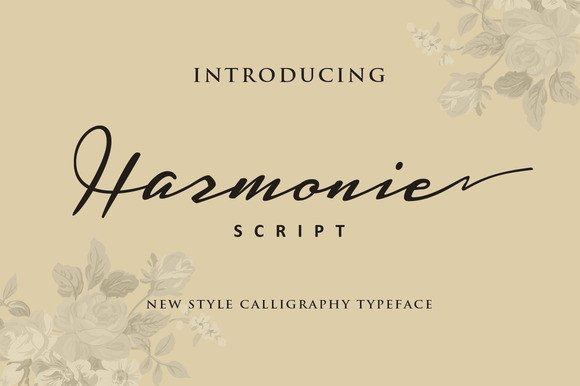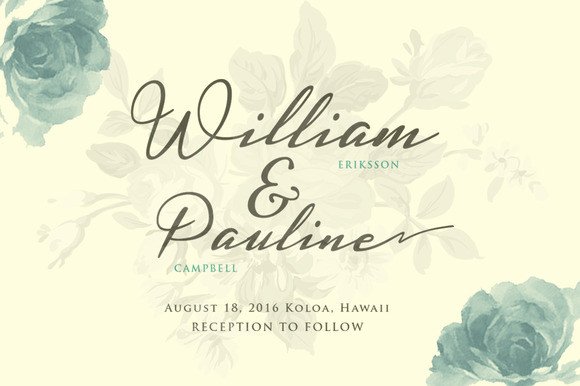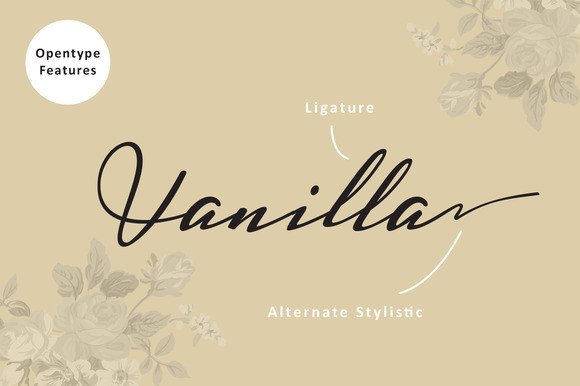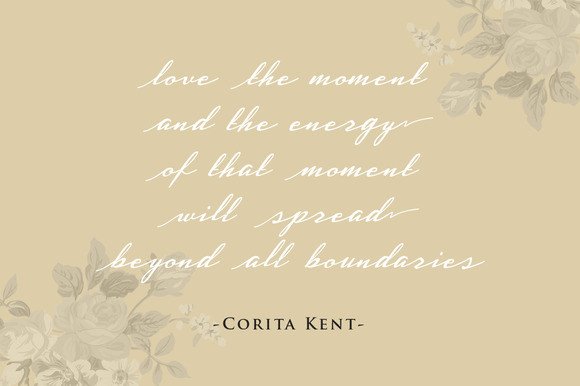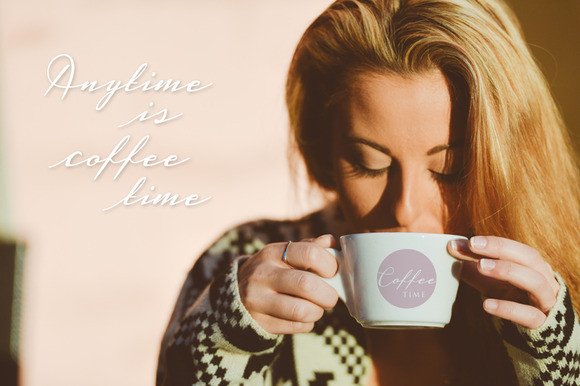
Harmonie Font
About Harmonie Font
Harmonie is a beautiful script font, with slight inkiness and boldness.  This is a font that looks ideal for displays and headlines, and can give a reliable charm to your designs.